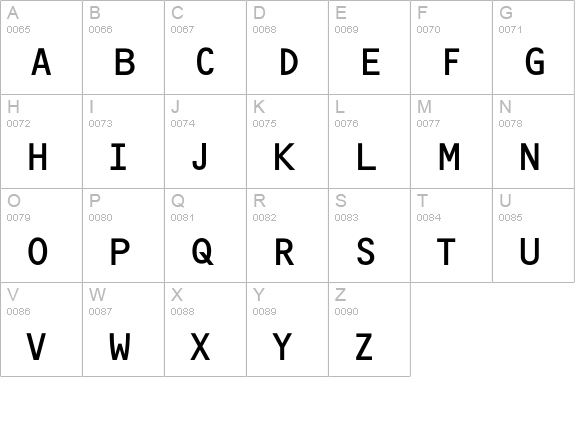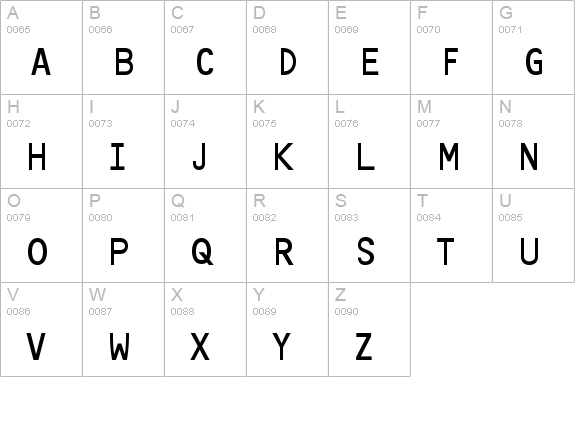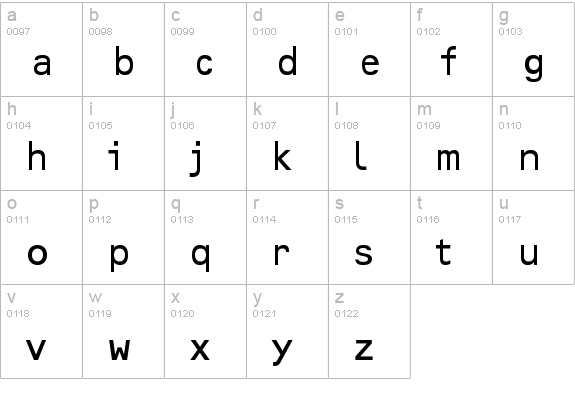
The OCRF-RegularOSF font is a versatile and modern typeface that combines the classic look of OCR fonts with contemporary design elements. With its clean lines and easy readability, this font is perfect for a wide range of applications, from digital documents to print materials. The OCRF-RegularOSF font is designed to be free for personal and commercial use, making it a valuable addition to any designer's toolkit. You can freely download the OCRF-RegularOSF font at FontsMarket.com and start using it in your projects today.